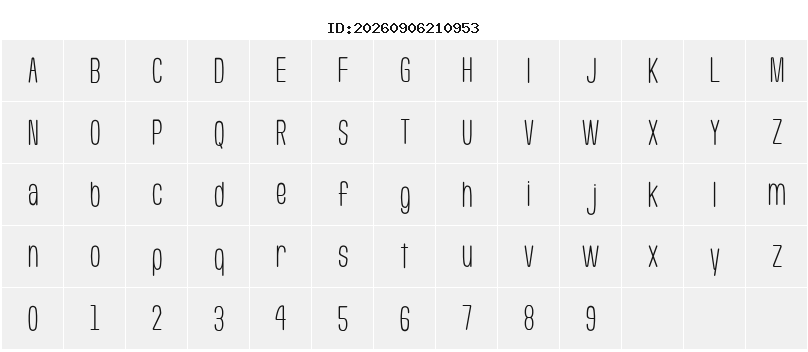
• Font Name: Usuazi Hosomozi
About Usuazi Hosomozi.ttf
Usuazi Hosomozi.ttf is a modern, elegant sans-serif font designed for ultimate readability and visual harmony. Perfect for branding, headlines, web design, and print materials.